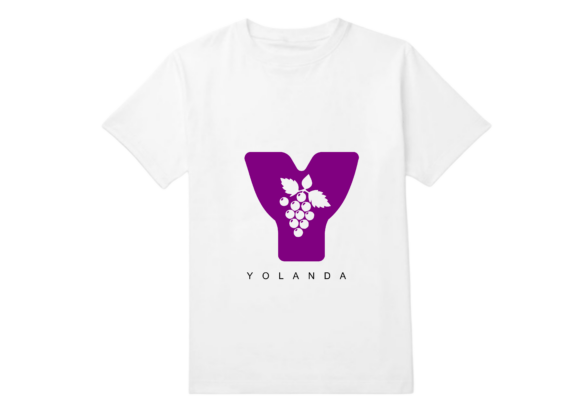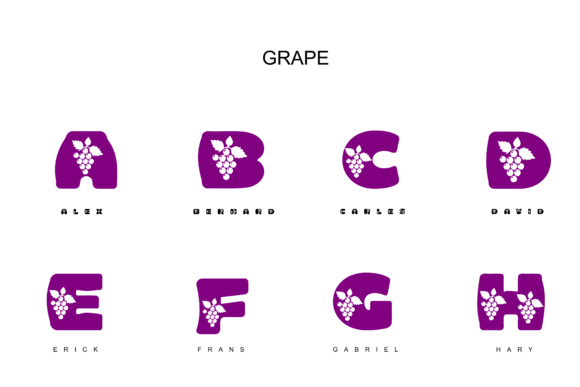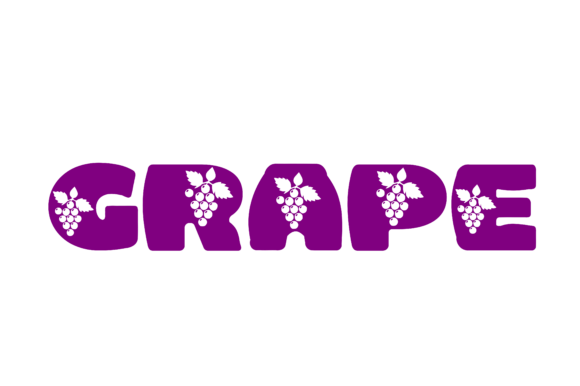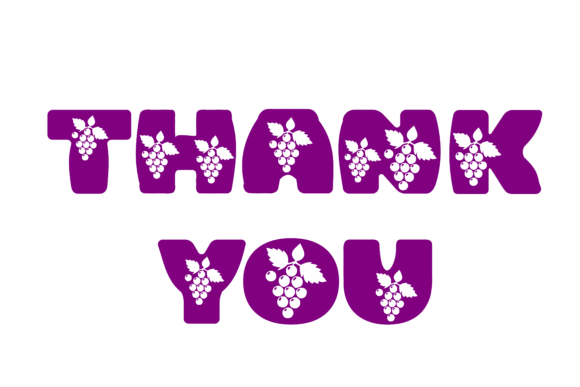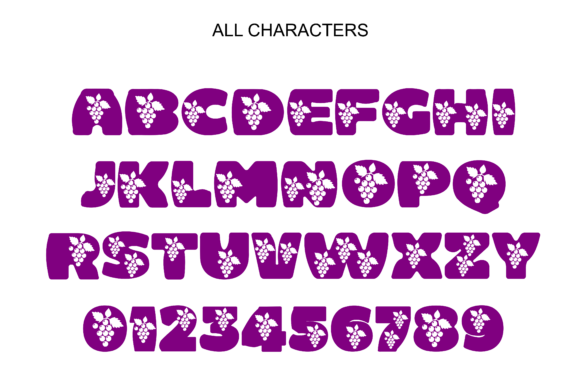
Introducing Grape Font: The Sweetest Addition to Your Design Projects
Are you looking for a font that adds a pop of color and a dash of whimsy to your designs? Look no further than Grape Font, a vibrant and fruity display font that’s perfect for a variety of creative projects. In this article, we’ll dive into the world of Grape Font, exploring its unique features, uses, and benefits for designers and crafters.
A Font That’s as Sweet as Grapes
Grape Font is a one-of-a-kind typeface that’s creatively filled with grape clusters in each letter. The result is a playful and eye-catching font that’s sure to grab attention. The rounded shapes and cheerful theme make it an ideal choice for designs that need a friendly and approachable feel. Whether you’re working on a food branding project, an organic market advertisement, a children’s book, or a wine-related design, Grape Font is the perfect fit.
Unique Features of Grape Font
- Fruity and Vibrant Design: Grape Font is filled with grape clusters in each letter, making it a standout in any design.
- Rounded Shapes: The font features rounded shapes that give it a friendly and approachable feel.
- Cheerful Theme: The overall theme of Grape Font is cheerful and playful, making it perfect for designs that need a happy vibe.
- Multipurpose: Grape Font can be used for a variety of projects, from food branding to children’s books and wine-related designs.
Uses for Grape Font
Grape Font is a versatile typeface that can be used in a variety of design projects, including:
- Food Branding: Add a touch of whimsy to your food brand with Grape Font, perfect for packaging, labels, and advertisements.
- Organic Markets: Use Grape Font to create eye-catching signs, flyers, and brochures for organic markets and health food stores.
- Children’s Books: Grape Font is perfect for children’s book titles, illustrations, and storyboards.
- Wine-Related Projects: Add a touch of elegance and playfulness to your wine-related designs, such as wine labels, posters, and advertisements.
Grape Font offers a range of benefits for designers and crafters, including:
- Unique Designs: Grape Font allows you to create unique and eye-catching designs that stand out from the crowd.
Tips for Using Grape Font
Here are some tips for using Grape Font in your design projects:
- Pair with Other Fonts: Pair Grape Font with other fonts to create a unique and visually appealing design.
- Experiment with Colors: Experiment with different colors to find the perfect combination that matches your brand or design.
- Use in Combination with Images: Use Grape Font in combination with images or illustrations to create a cohesive design.
Grape Font is a vibrant and fruity display font that’s perfect for designers and crafters looking to add a touch of whimsy to their projects. With its unique features, versatility, and ease of use, Grape Font is an excellent choice for a variety of creative projects. Whether you’re working on food branding, organic markets, children’s books, or wine-related designs, Grape Font is sure to make your designs stand out.